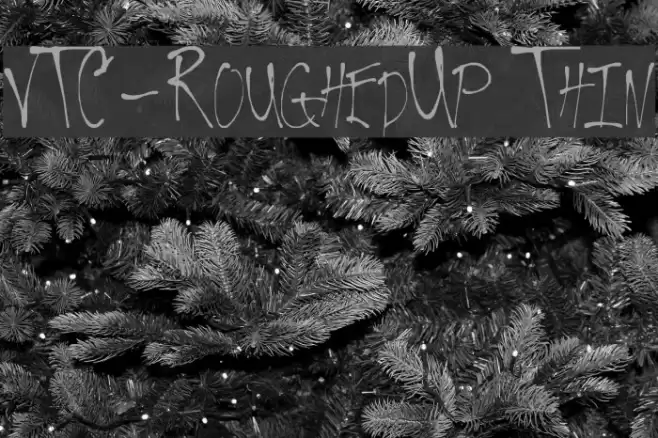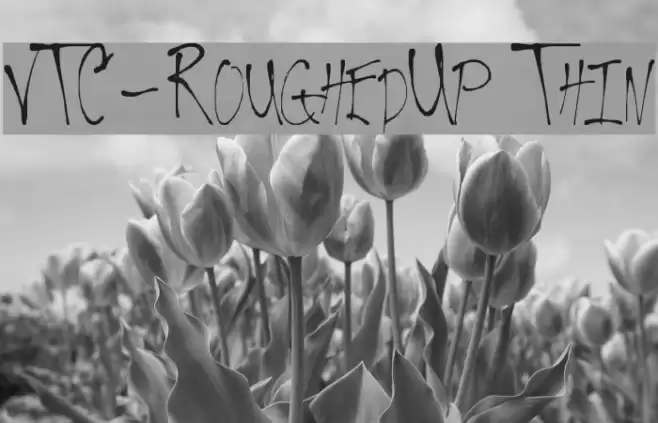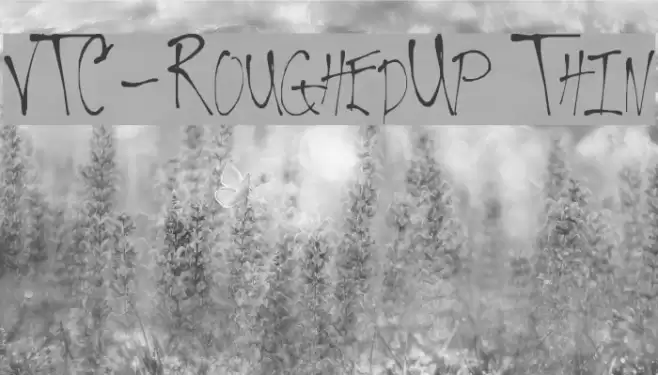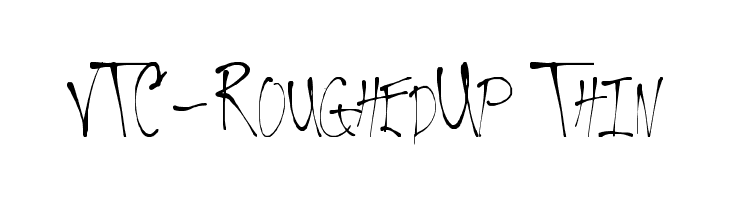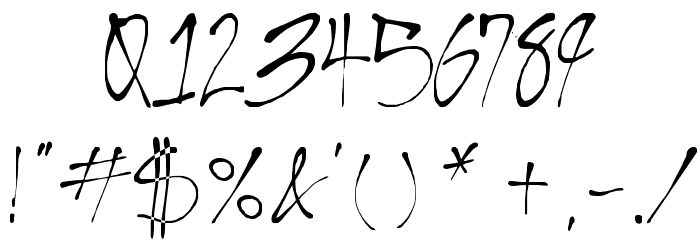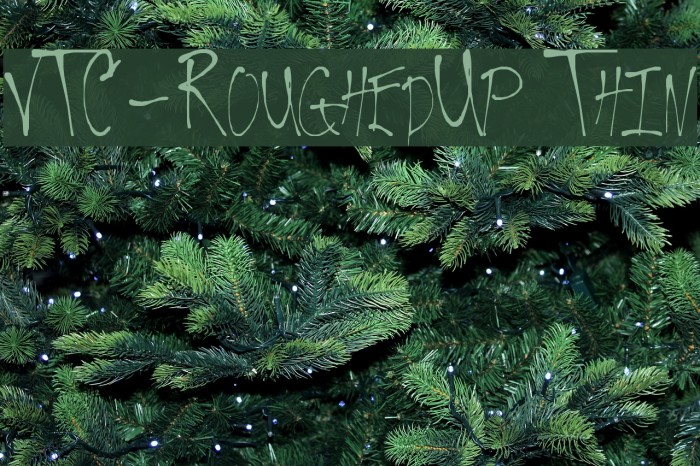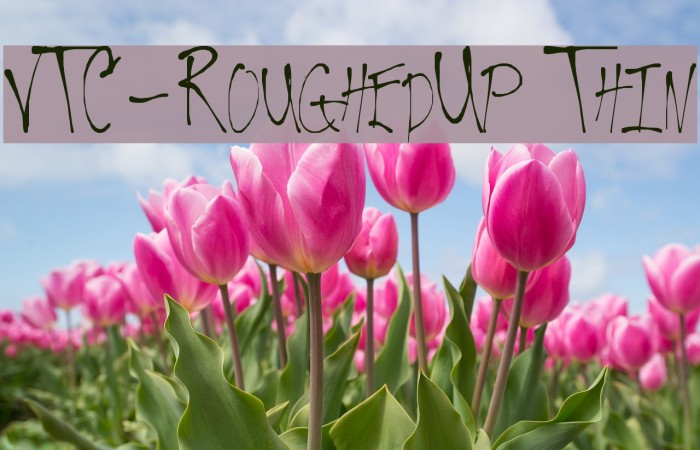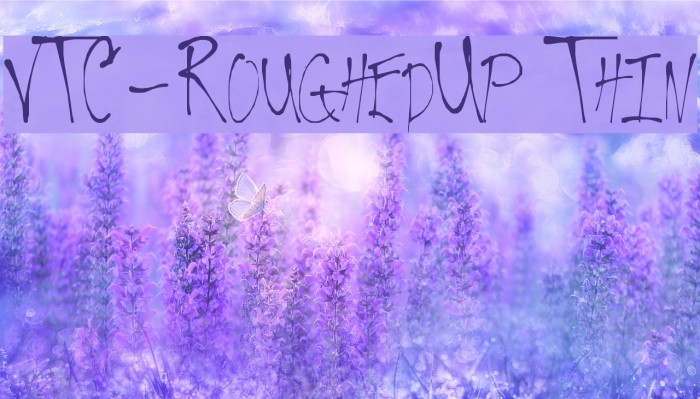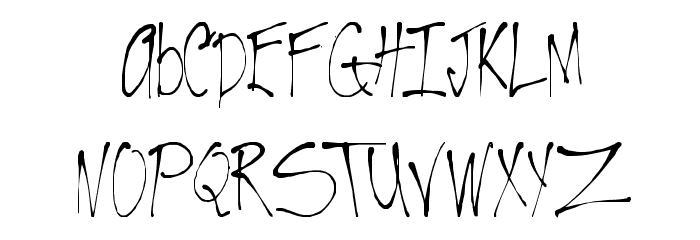
VTC-RoughedUp Thin Font
VTC-RoughedUp Thin Description
This font features a rough, hand-drawn aesthetic with thin strokes that give it a unique and edgy appearance. The letters are irregular and slightly distorted, adding a sense of dynamism and movement. The uppercase and lowercase letters maintain a consistent style, with elongated and exaggerated forms that create a playful yet rebellious vibe. The numbers and special characters follow the same design principles, ensuring a cohesive look across all glyphs. This font is perfect for projects that require a raw, artistic touch, such as posters, album covers, or creative branding.
A rough, hand-drawn font with thin, irregular strokes and a dynamic, edgy style from Uncategorized fonts.
- Proposed Projects: Ideal for posters, album covers, creative branding, and any project needing an artistic, rebellious touch.